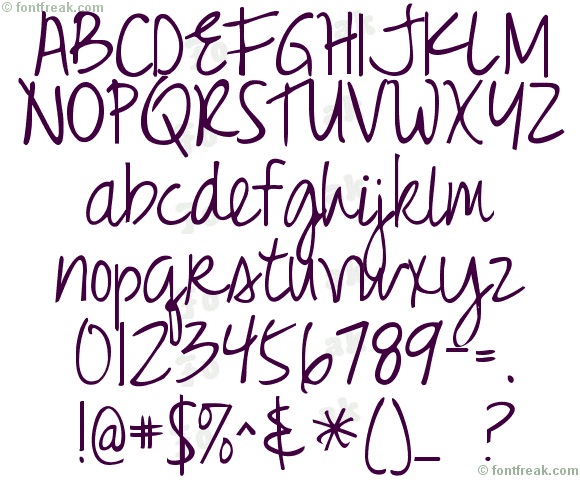
The Just Realize font, designed by Kimberly Geswein, is a delightful handwritten style that exudes warmth and personality. This font falls into the script category, making it perfect for projects that require a personal touch. The strokes are fluid and natural, embodying the essence of genuine handwriting. The moderate stroke weight provides a balanced appearance, while the gentle contrasts in thickness add depth without overwhelming the eye. The spacing is well-considered, ensuring readability while maintaining an informal and approachable aesthetic.
This font is versatile and can be used effectively in various contexts. It is particularly suited for wedding invitations, where its charming style can enhance the romantic feel of the event. Additionally, it works wonderfully for greeting cards, adding a heartfelt touch to personal messages. Small business owners can leverage Just Realize for branding materials, such as logos and promotional flyers, to create a friendly and inviting image. Content creators will also find it ideal for social media graphics and blog headers, where a casual yet stylish font can engage audiences.
The target audience for Just Realize includes graphic designers looking to add a unique touch to their projects, small business owners wanting an approachable brand identity, and content creators seeking to enhance their visual storytelling. With its free license, the Just Realize font free download allows anyone to incorporate this charming typeface into their work without budget constraints.
What sets Just Realize apart is its ability to convey authenticity and warmth, making it a standout choice for anyone wishing to add a personal flair to their designs. Whether used in professional or personal projects, this font brings an inviting and friendly character that resonates with audiences, enhancing the overall message.